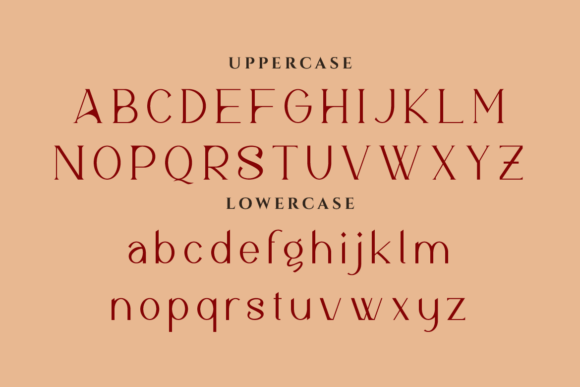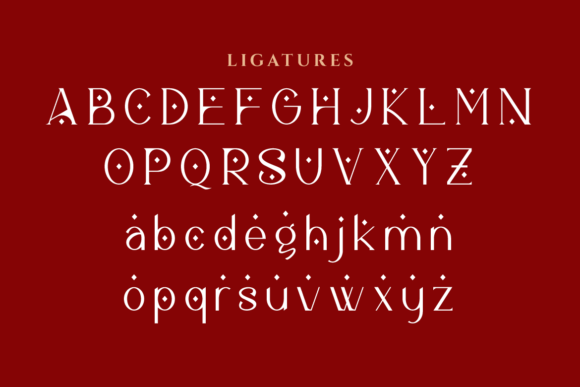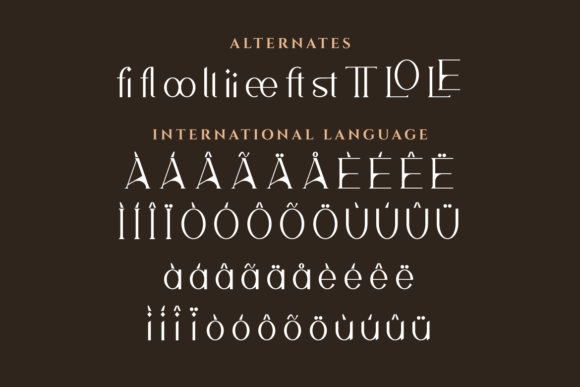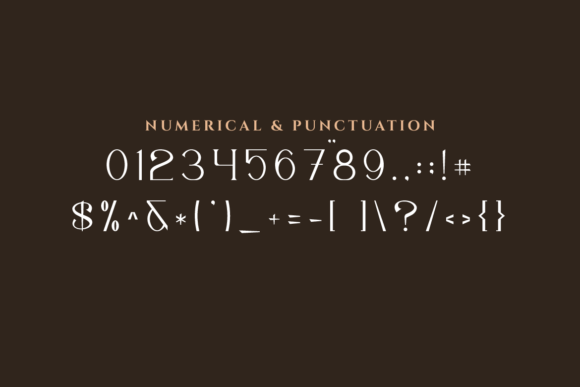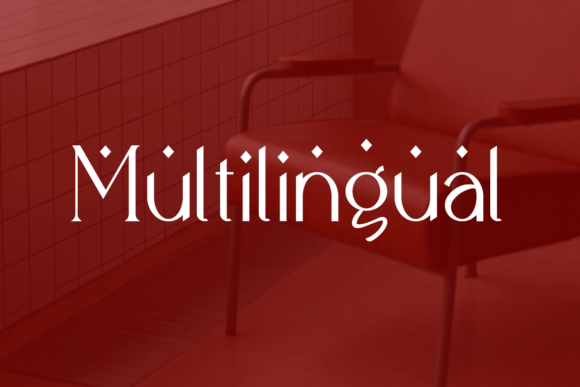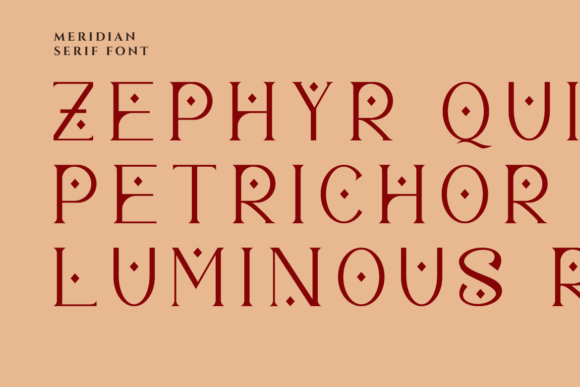
Introduction to Meridian Font
Have you ever found yourself stuck in a creative rut, staring blankly at your computer screen, searching for the perfect font to bring your design to life? I know I have. As a designer, I’ve spent countless hours scouring through font libraries, only to end up with a bunch of generic, cookie-cutter options that just don’t cut it. But then, I stumbled upon the Meridian Font, and everything changed.
With its refined and elegant design, the Meridian Font is a game-changer for any creative project. Whether you’re working on a luxury branding campaign, designing editorial content, or creating wedding stationery, this premium serif font is sure to elevate your design to new heights. Its stylish contrast, graceful curves, and unique diamond-shaped dots make it the perfect addition to any design resource.
Key Features of Meridian Font
- Unique characteristics include elegant lines, modern aesthetic, and precise typography
- Perfect for use in digital and print media, including logos, branding, and advertising
Honest Review: Meridian Font
I recently came across the Meridian Font and I must say, it’s been a great addition to my design resources. I love how it offers a high-quality, elegant feel that’s perfect for a creative project.
What works well: ✨ The Meridian Font has a beautiful, modern design that’s great for titles, headings, and even body text. It’s also available for free download, which is a huge plus for designers on a budget. I also appreciate the transparent background, which makes it easy to use in various design scenarios.
- Great for titles, headings, and body text
What doesn’t work well: ⚠️ The Meridian Font only comes in a few weights, which might limit its versatility for designers who need a wider range of options. Additionally, the font might not be suitable for extremely small or large text sizes.
Overall, I’m really impressed with the Meridian Font. It’s a great design resource that’s perfect for designers who want a high-quality, elegant font for their creative projects. With its transparent background and free download option, it’s a must-have for any design library.
The Meridian Font is a high-quality design resource that offers a unique and elegant style, perfect for creative projects. Its transparent background allows for easy integration into various design platforms.
Tips for Getting the Most Out of Meridian Font
To get the most out of the Meridian Font, use it in combination with other high-quality design resources. Experiment with different font sizes, colors, and styles to create a unique look for your creative project.
The Meridian Font is ideal for various design projects, including:
- Website headers and footers